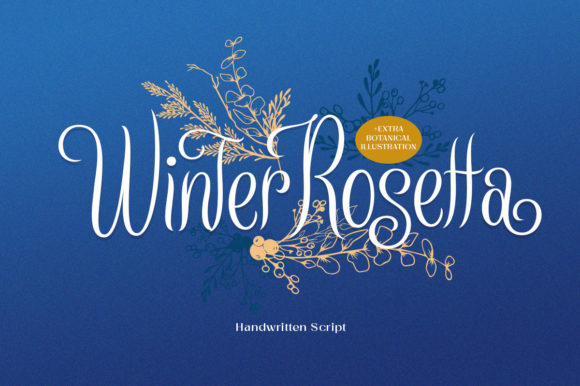
Meet Winter Rosetta Font: A Symphony of Beauty and Elegance for Your Creative Expressions
Embark on an enchanting journey into the world of Winter Rosetta Font, a captivating script font brimming with charm and grace. Inspired by the delicate strokes of authentic handwriting, this font transcends the ordinary, capturing the essence of natural signature styles. Winter Rosetta is not merely a font; it's an artistic masterpiece that will transform your designs into breathtaking visual symphonies.
With its enchanting curves and elegant swirls, Winter Rosetta Font dances across the page like a ballerina, effortlessly weaving its magic into your creative endeavors. Whether you're a seasoned designer or just starting your creative journey, this font is your perfect companion, guiding you towards designs that radiate beauty and sophistication.
Step into a world where imagination knows no bounds, where every letter is a stroke of genius, and every word a poetic masterpiece. Winter Rosetta Font opens up a realm of endless possibilities, inviting you to explore the depths of your creativity and craft designs that leave a lasting impression.
But Winter Rosetta Font is more than just a beautiful face; it's a versatile chameleon, adapting seamlessly to a myriad of design projects. From branding and packaging to social media graphics and wedding invitations, this font effortlessly elevates your designs, adding a touch of timeless elegance to every creation.
And to further enhance your design arsenal, Winter Rosetta Font comes with a treasure trove of hand-drawn illustrations, each one a work of art in its own right. Floral motifs, botanical wonders, and graceful lines intertwine harmoniously, providing you with an array of design elements that will captivate and enchant your audience.
So, whether you're a seasoned designer seeking inspiration or a creative enthusiast yearning to elevate your designs, Winter Rosetta Font is your ultimate choice. Dive into the world of beauty and elegance, and let your creativity flourish like never before. Embrace the magic of Winter Rosetta Font and watch your designs transform into masterpieces that will leave your audience spellbound.